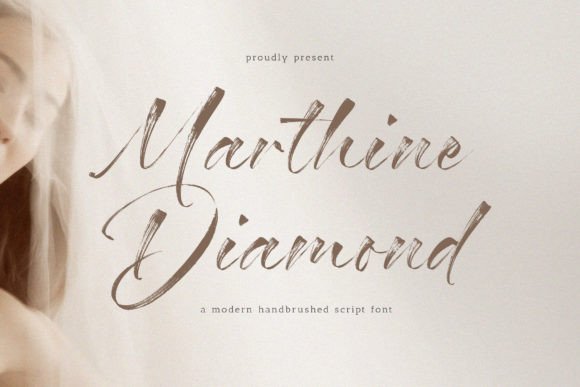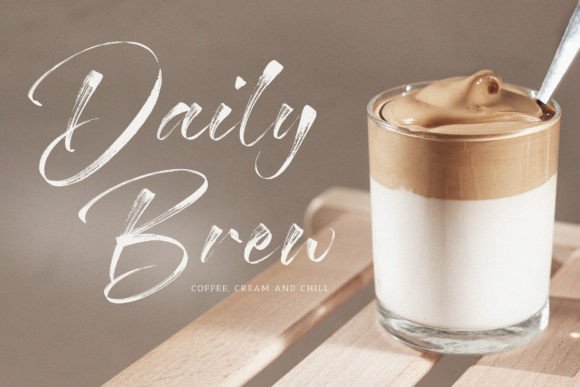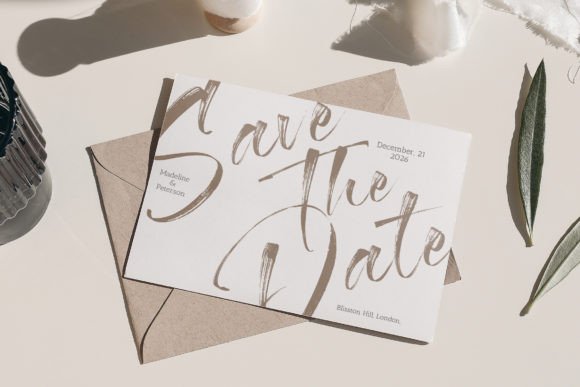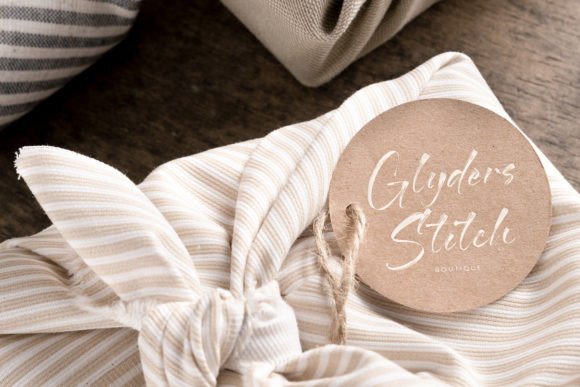
Marthine Diamond Font
About the Marthine Diamond Font
Make a bold statement with Marthine Diamond Font, a powerful and memorable font. Marthine Diamond is an exquisite handwritten font, masterfully designed to become a true favorite. It maintains its classy calligraphic influences while feeling contemporary and fresh. Fall in love with it and bring your projects to the highest levels!
Marthine Diamond excels in applications requiring a touch of elegance and sophistication. It’s ideal for short headlines, logos, and branding elements where its refined calligraphic style can shine. Consider using it for invitations, packaging for luxury goods, or short impactful quotes in marketing materials. Avoid using it for extensive body text or UI elements; its decorative nature compromises readability in longer passages.
Its inherent personality is sophisticated and slightly playful. It evokes a sense of classic charm with a contemporary twist.
To complement Marthine Diamond, consider pairing it with a clean sans-serif like Lato for body text or a modern serif such as Playfair Display for a more traditional feel. For a more playful look, a geometric sans-serif like Montserrat could provide a striking contrast.
Marthine Diamond Font Usage Examples
Marthine Diamond Font Example